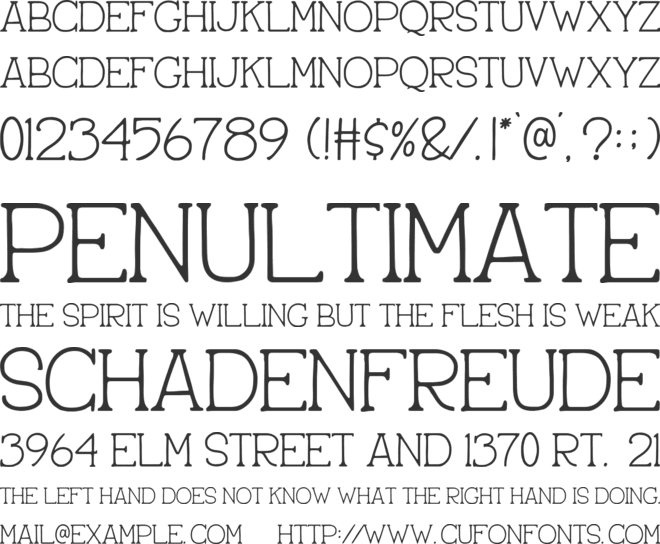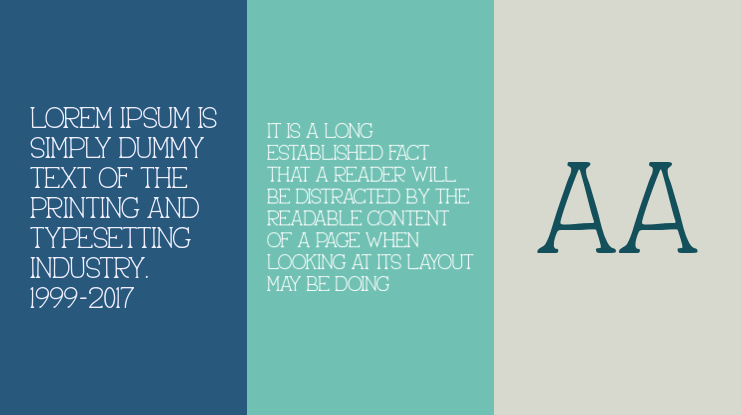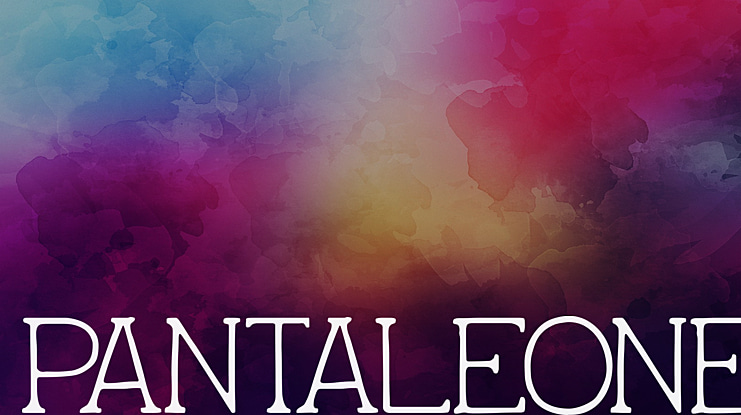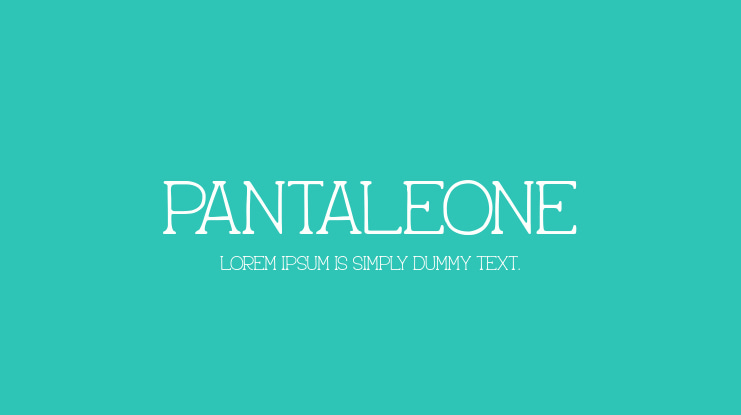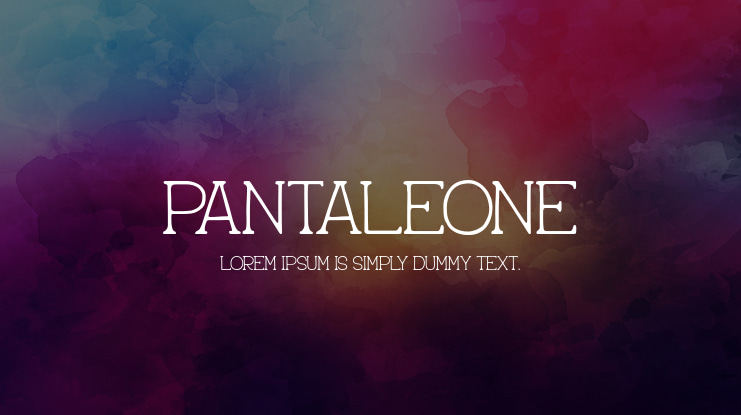
Pantaleone Font Family
Gustian Agung Asprilla
Pantaleone makes your job of making vintage designs easier, this font is suitable for vintage design uses, especially for packaging, branding, quotes, etc. Learn more: https://uifreebies.net/font/pantaleone-vintage-typeface